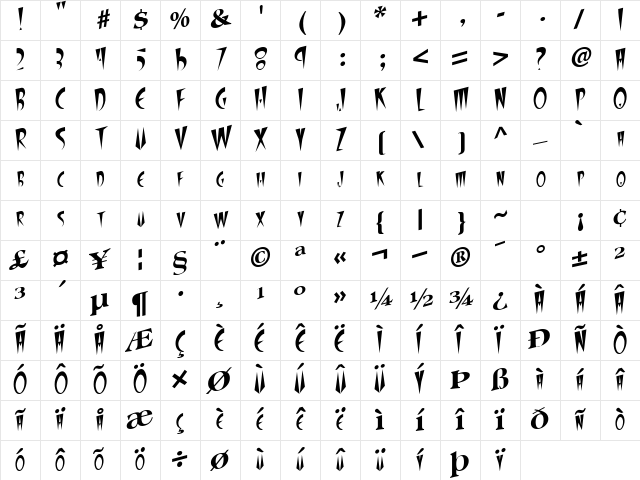
Mutual Regular
Mutual Family
Mutual Regular
Design Context for Mutual
Mutual is a composed and adaptable typeface that performs quietly and consistently across a wide range of design contexts.